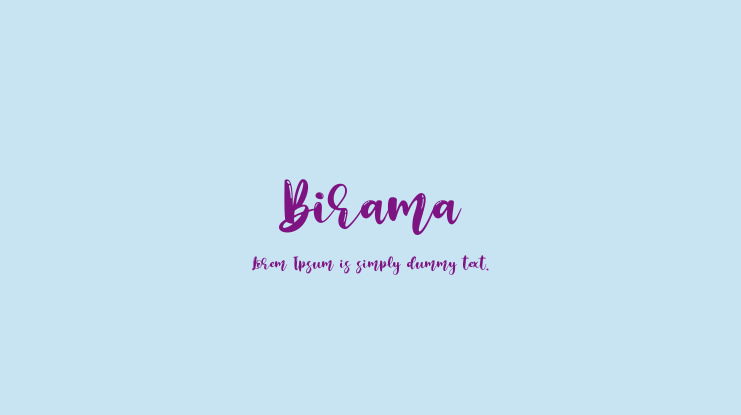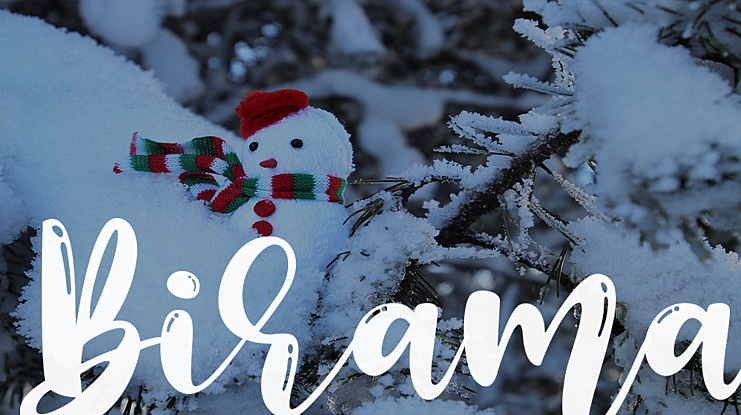
Birama Font
Sarwo Edhi Prayitno
a Hand-lettered with beauty style, Birama is a must have for all your design needs. Perfect for greeting cards, branding, stationery design, social media, packaging, magazine layouts, prints and more!
Utilize lowercase for a completely alternate style and also ligatures, for creative designs.
Birama has a variety of unique, coded features to create compelling, handmade outcomes: stylistic alternates and standard ligatures.